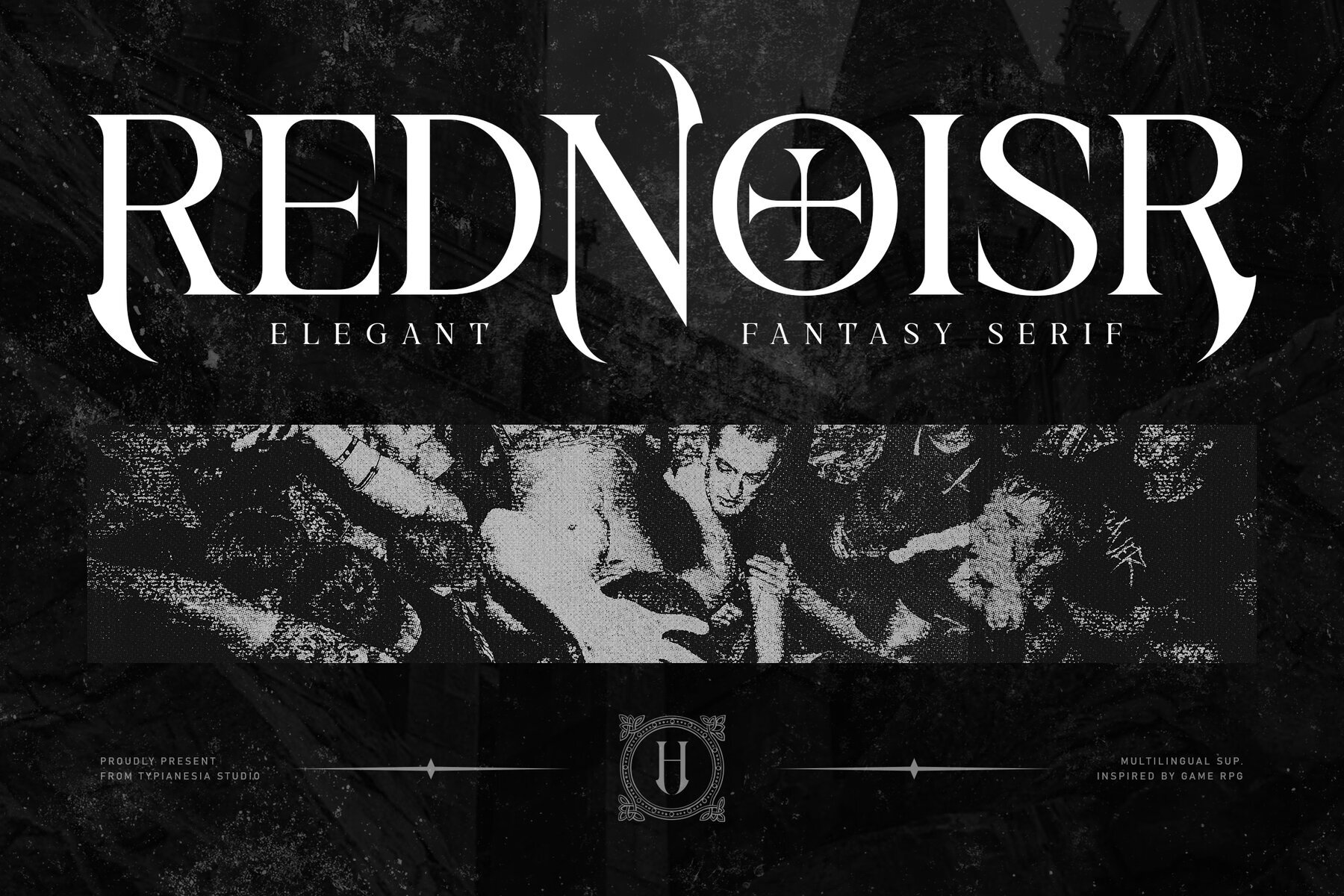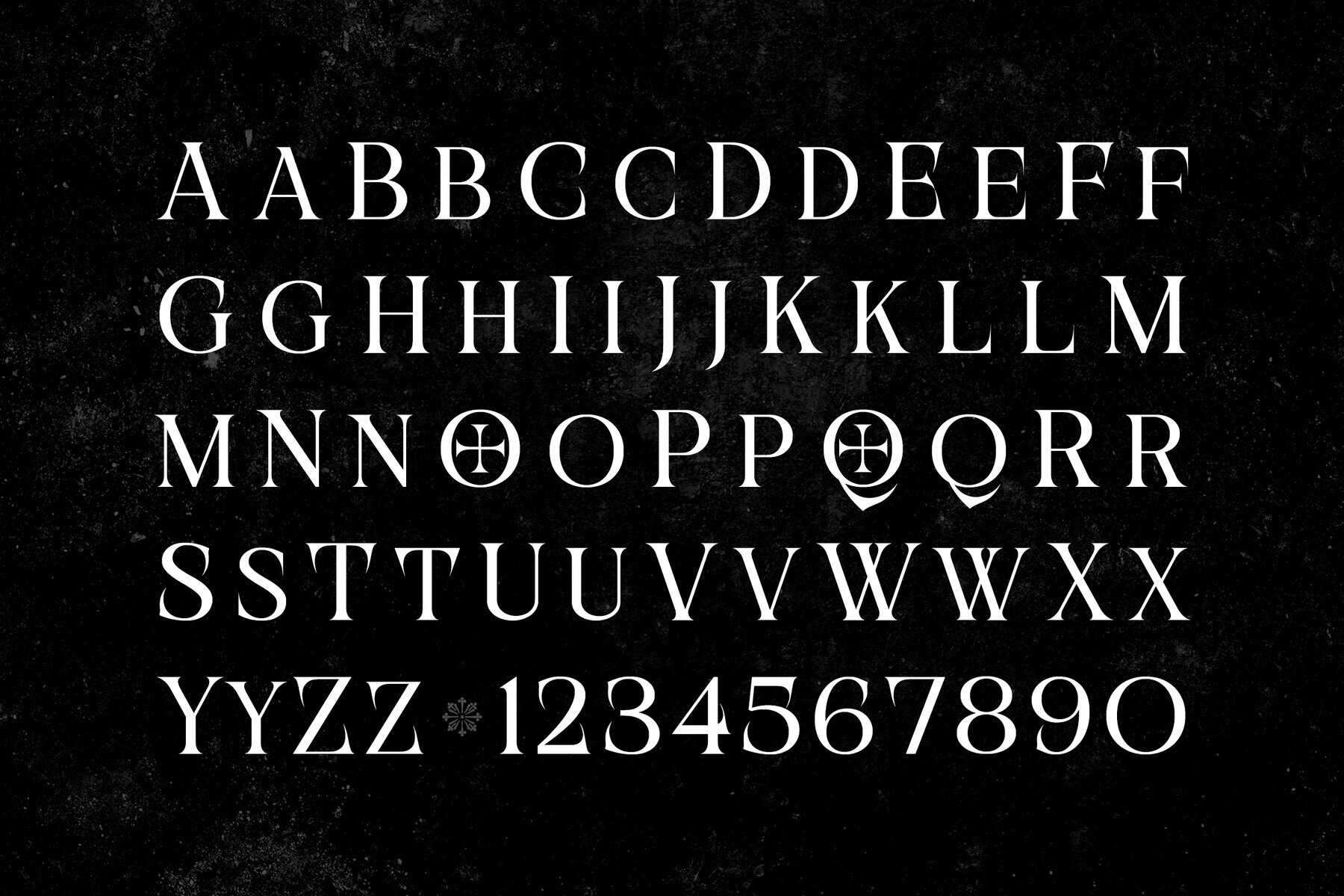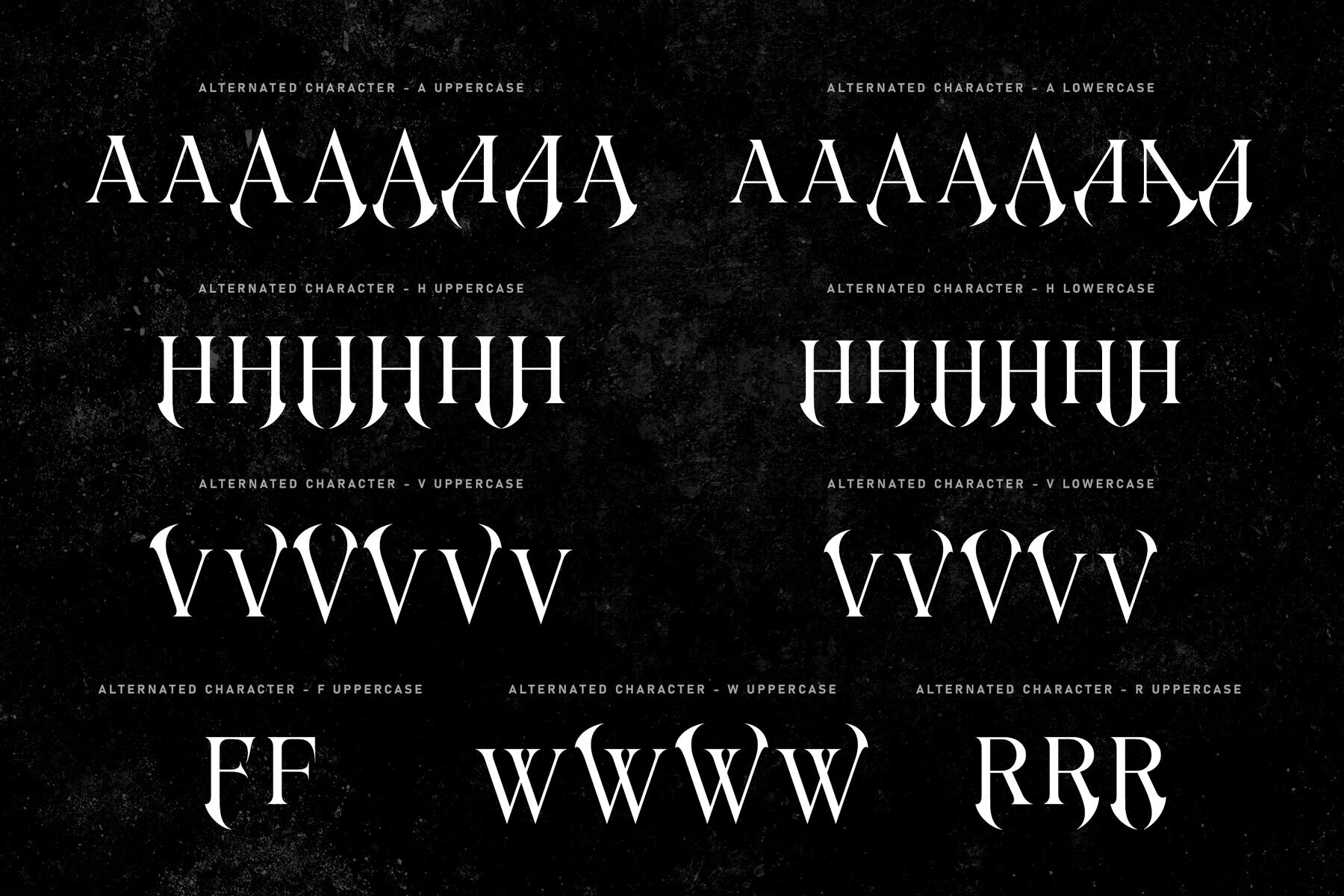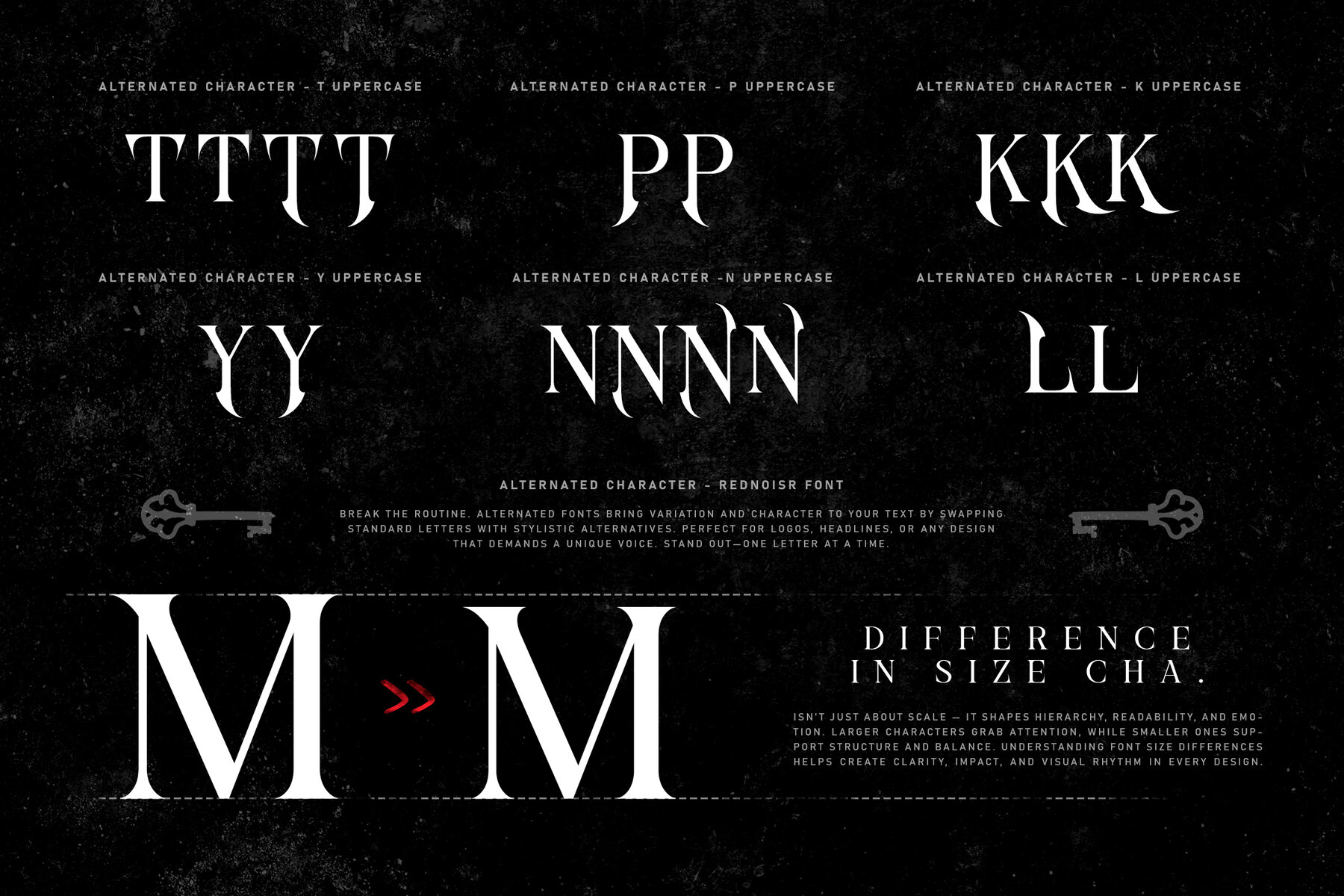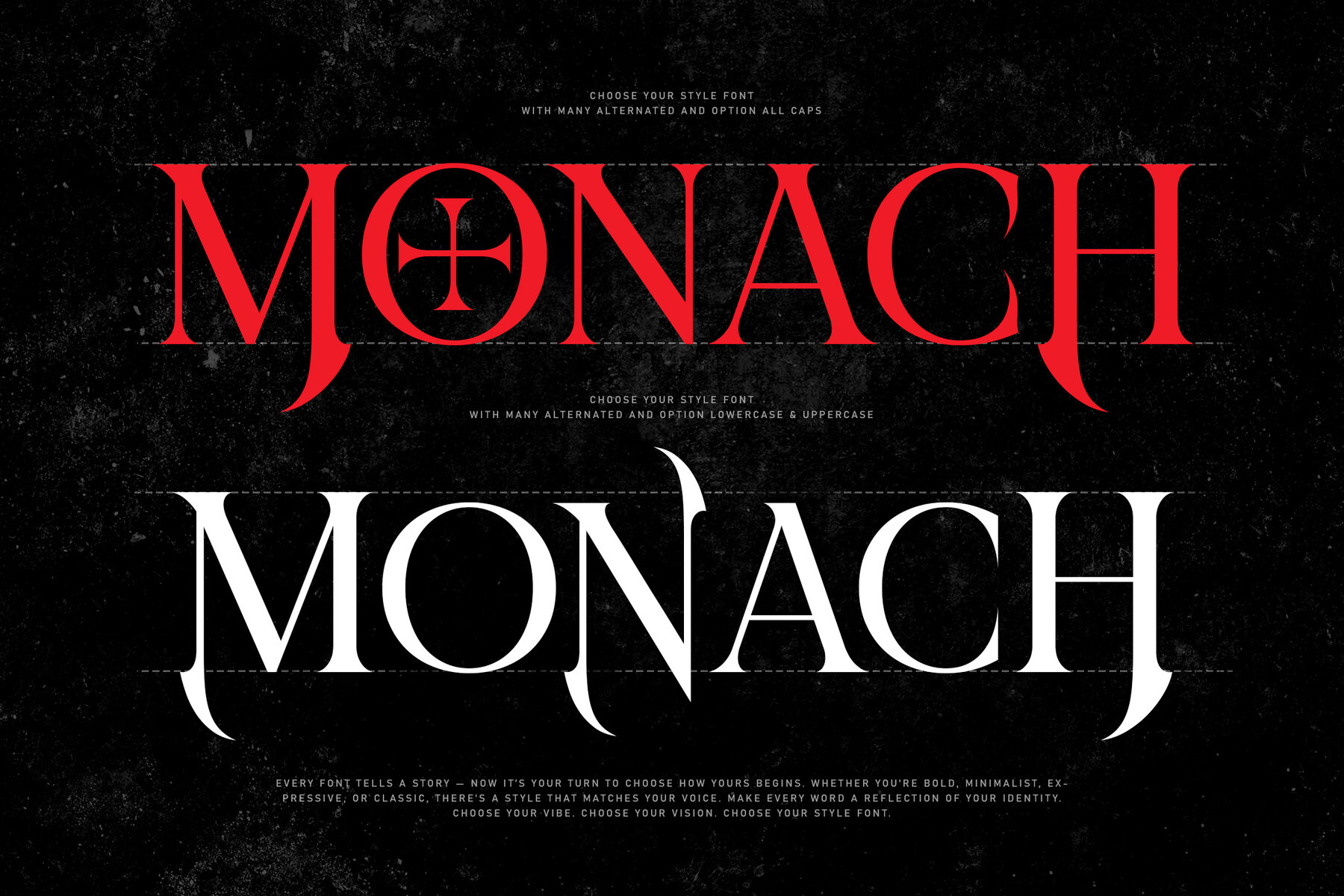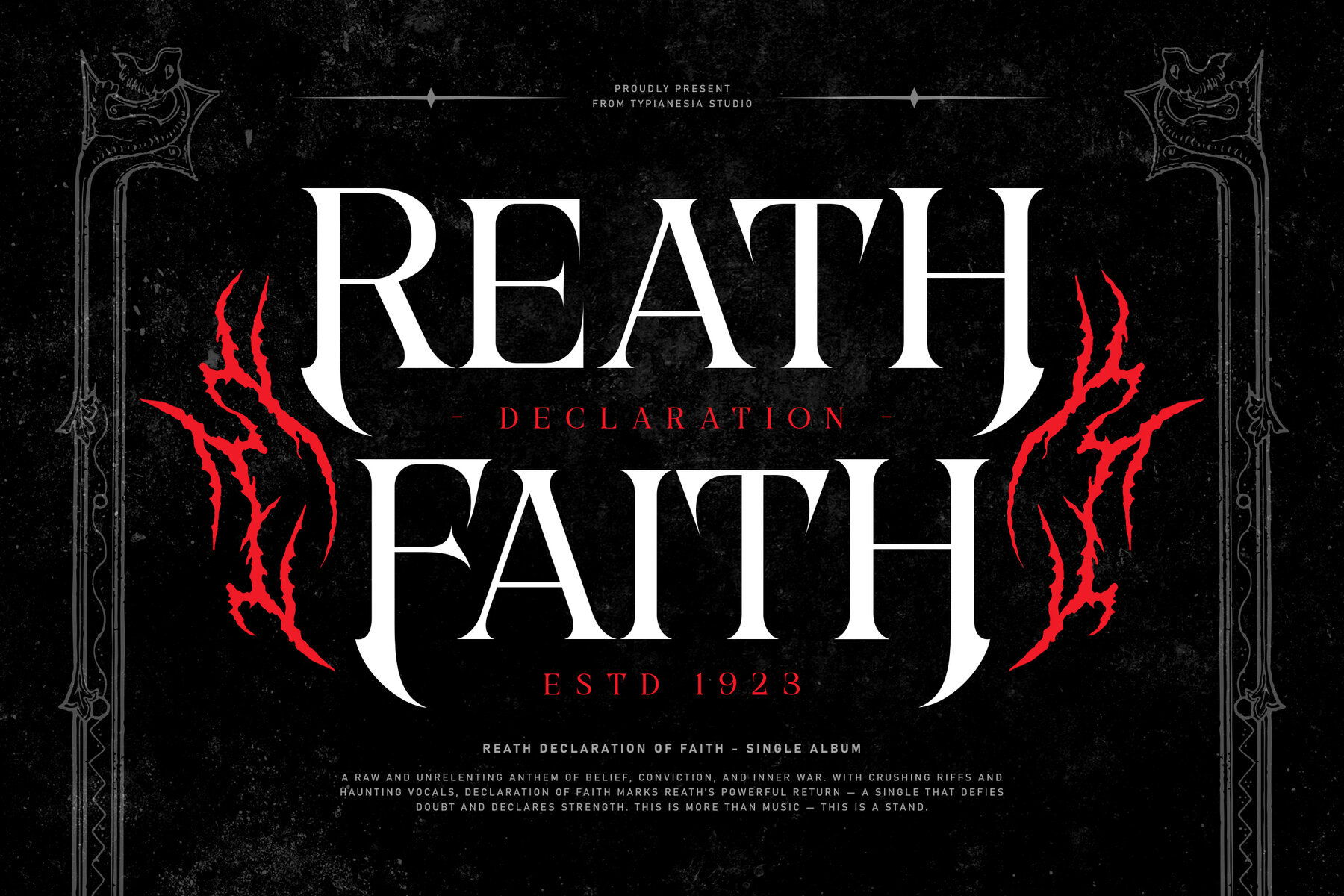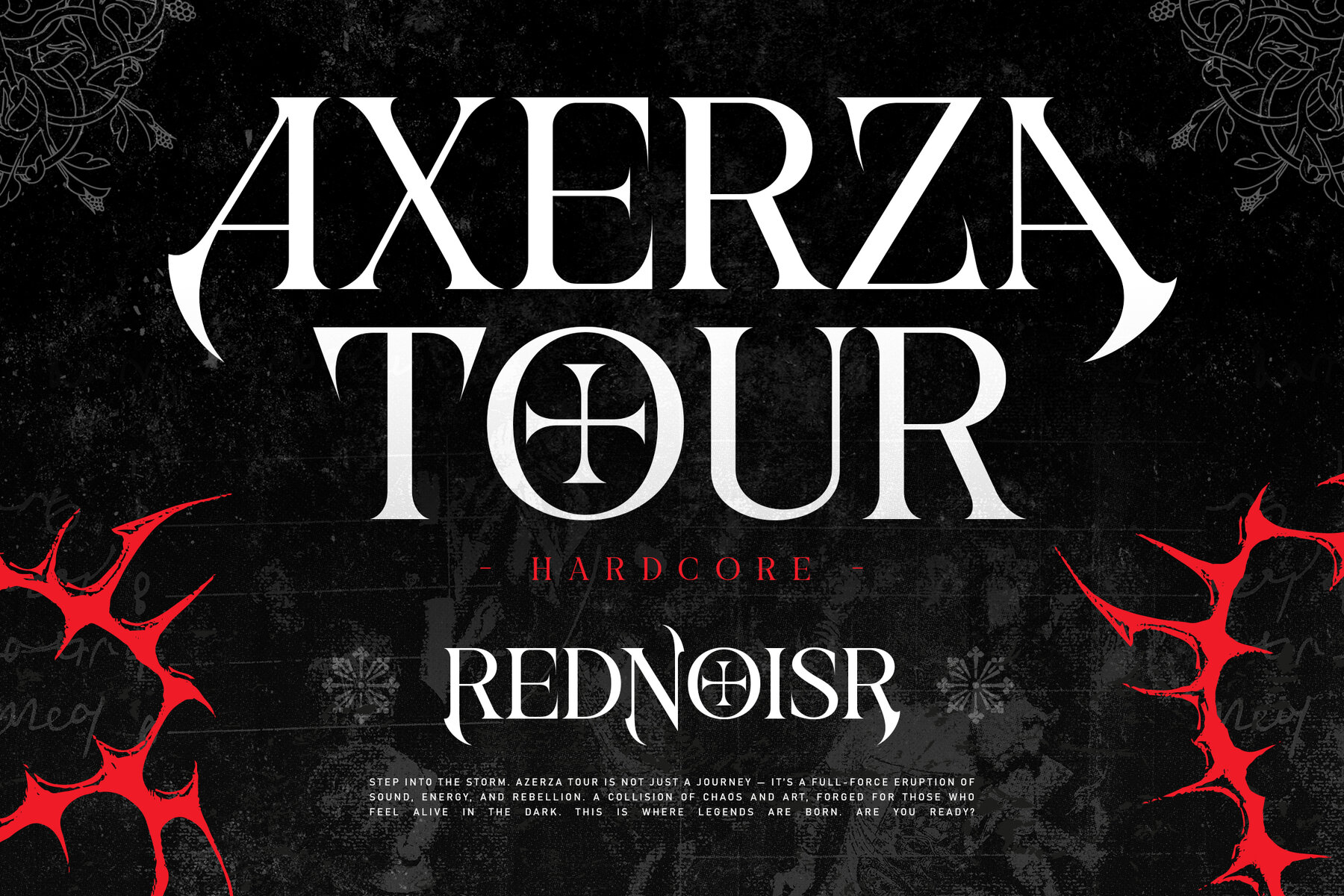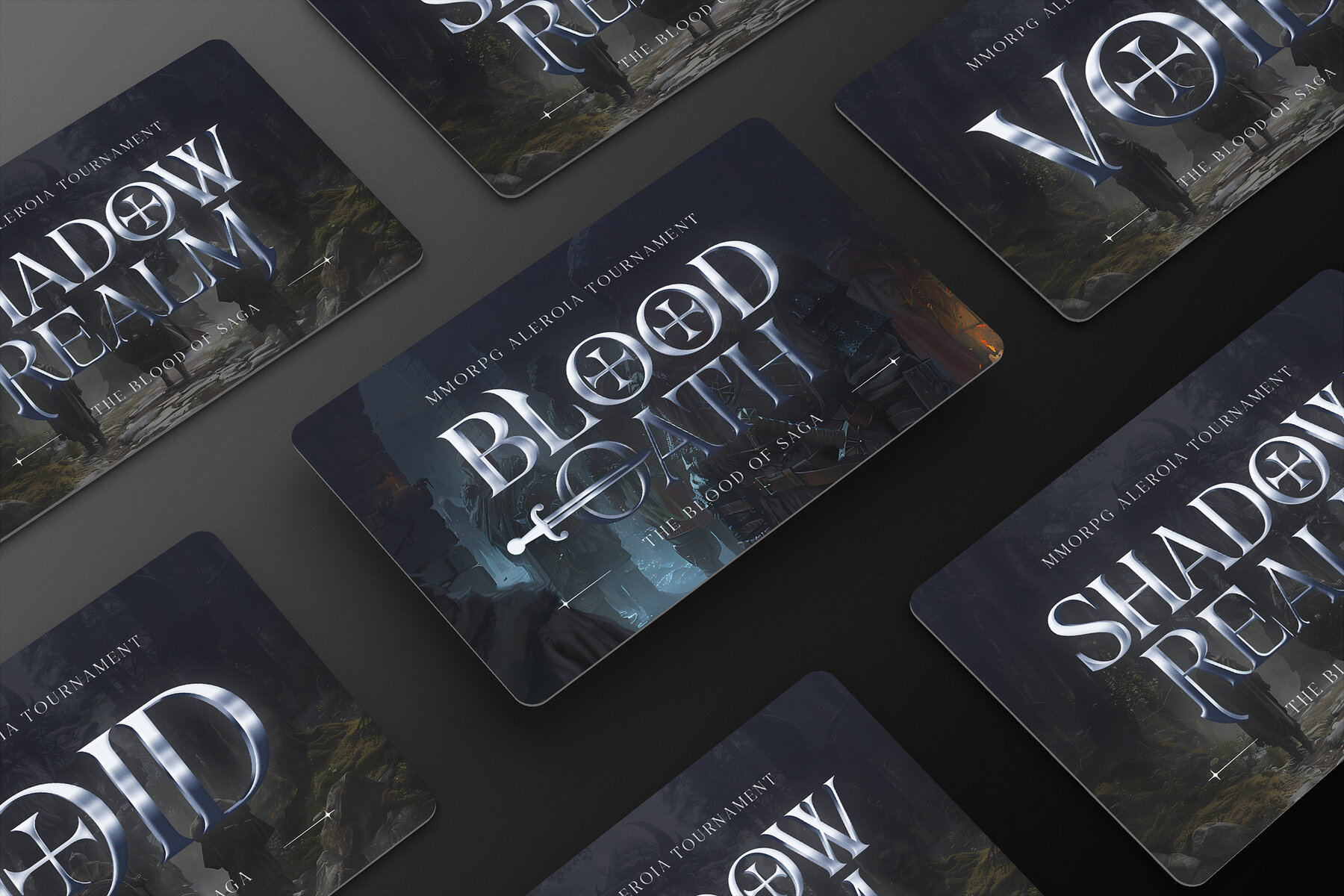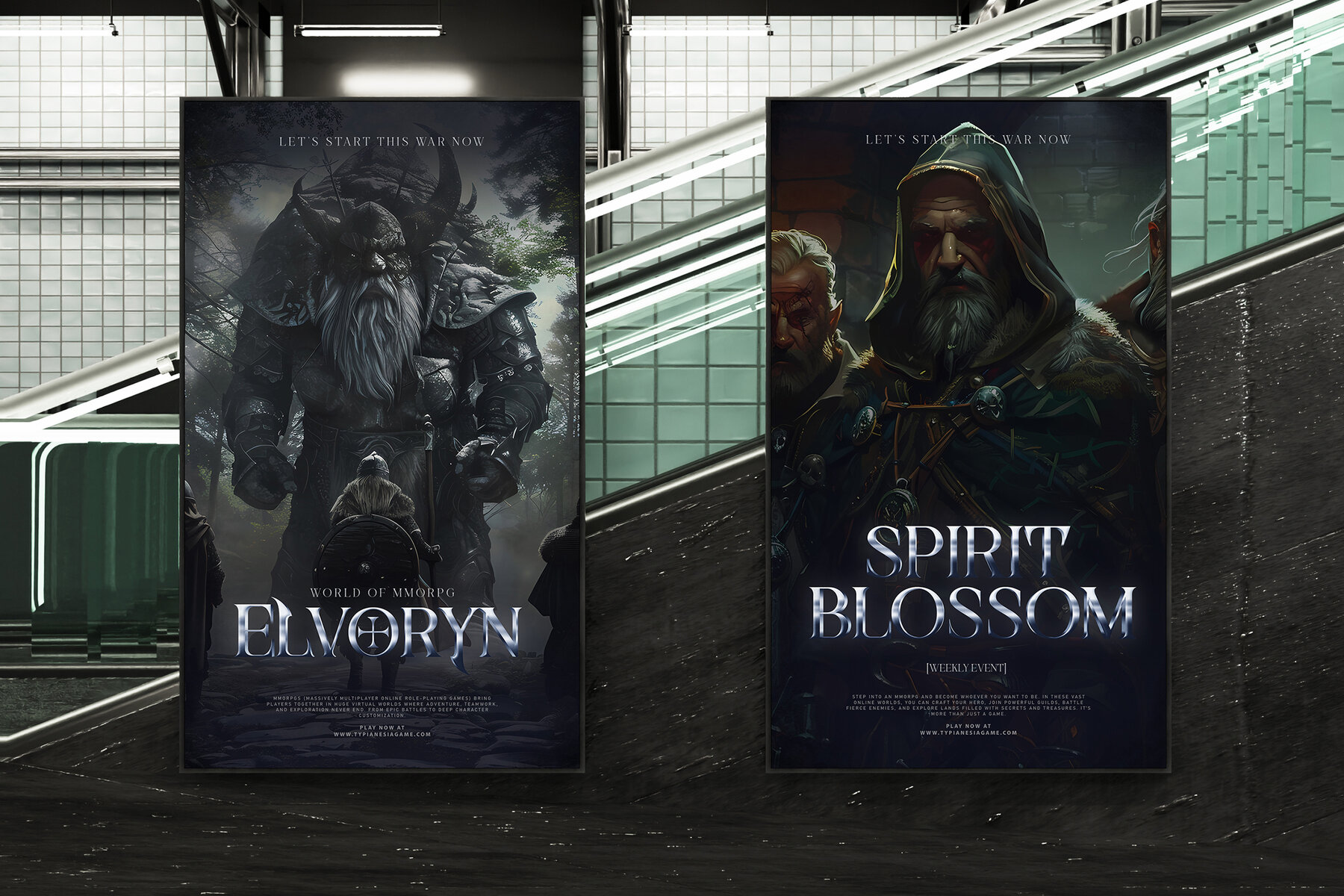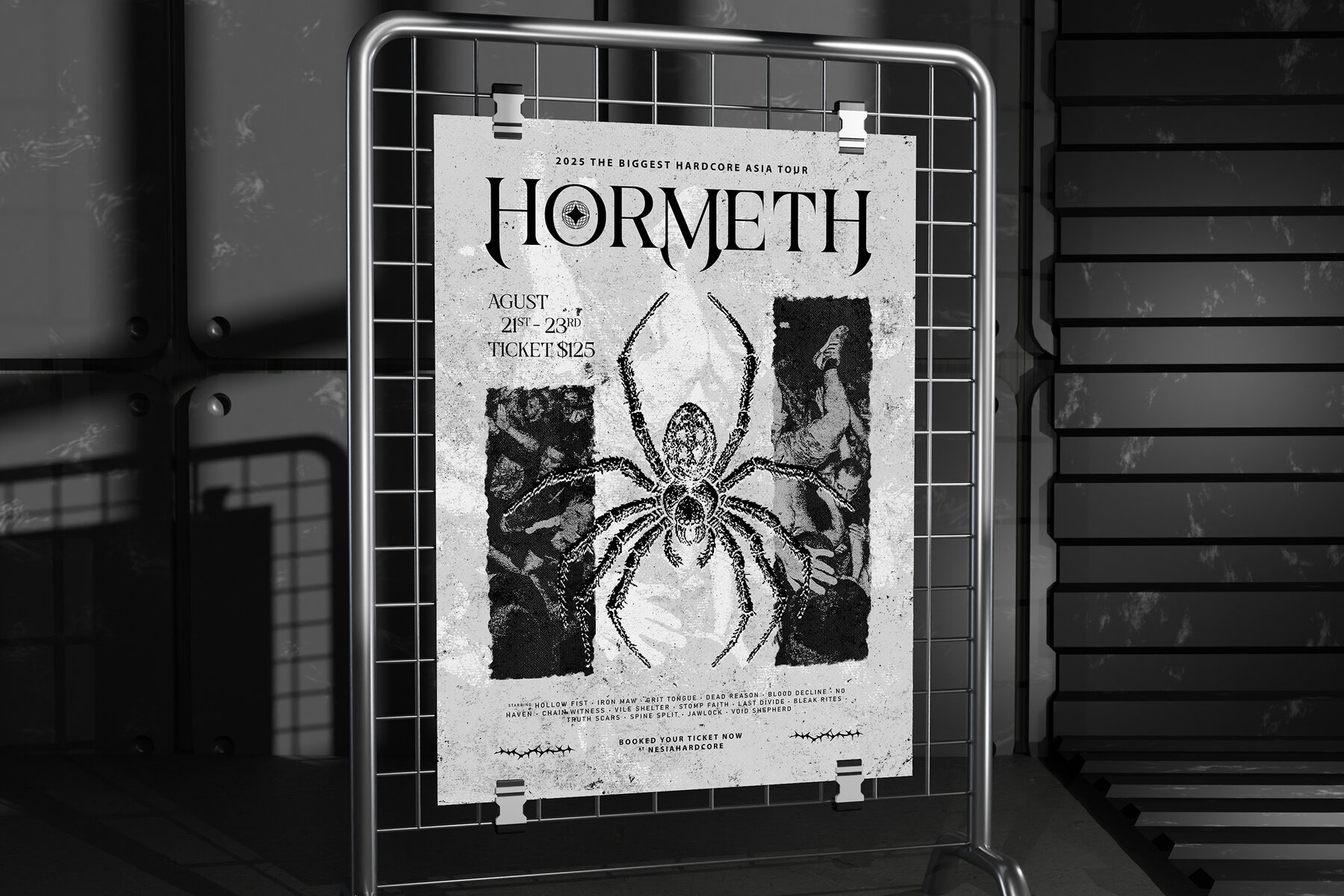
Rednoisr Font
Rednoisr Regular
Rednoisr is an elegant fantasy serif font, meticulously designed to evoke mystique and power. Drawing inspiration from the rich worlds of RPG narratives, this versatile display typeface features distinctive alternates and commanding serifs, perfect for capturing attention. Ideal for a range of creative projects—from branding, fantasy novel covers, and game titles to advertising campaigns, posters, logos, album art, and event promotions—Rednoisr ensures an impactful visual presence. With Rednoisr, elevate your project to new heights with a truly unforgettable typographic experience. Embrace the creative potential of this unique font to craft a bespoke look that resonates.Rednoisr: An Elegant Fantasy Serif Font for Diverse Projects